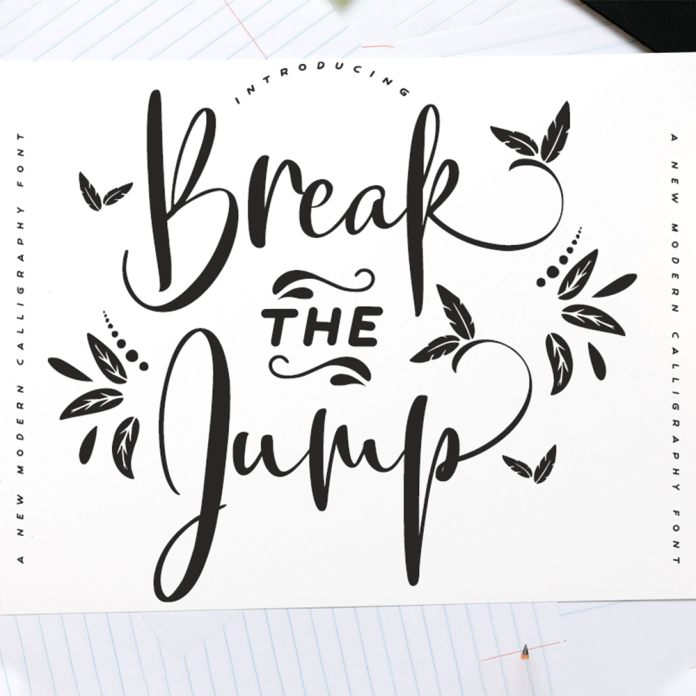
Break the Jump font is a modern and stylish script font with a unique design that combines elegance with a touch of playfulness. Its flowing and dynamic strokes make it perfect for a variety of creative projects, from branding to invitations. This premium font will elevate your designs and make them stand out.